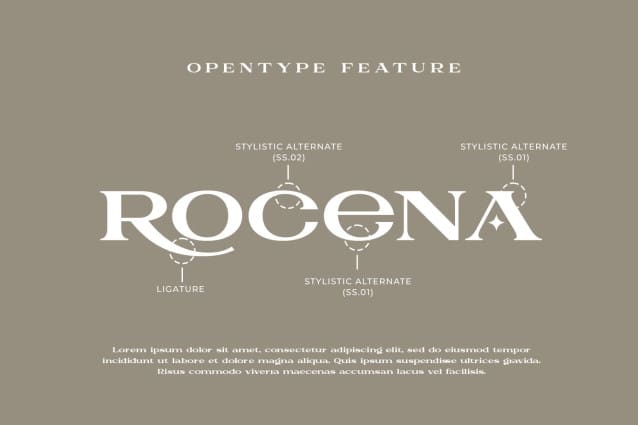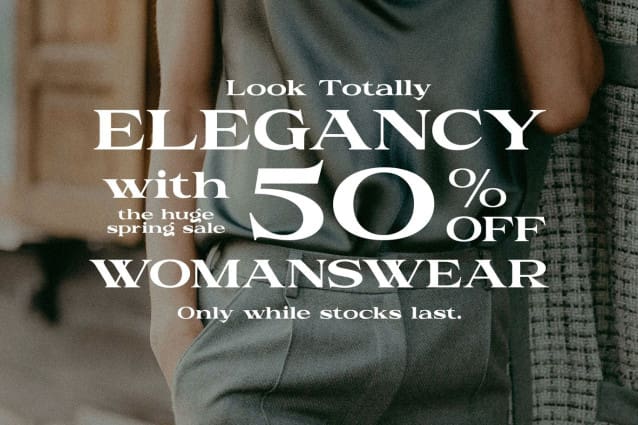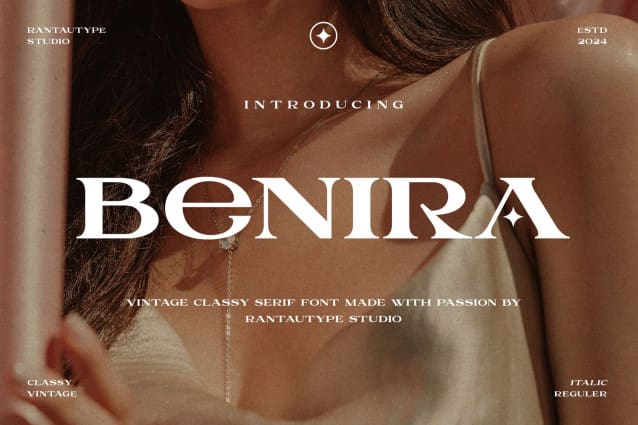
Benira Font
Benira Font is a chic vintage font with a broad aesthetic and sharp essence of elegant fashion. Benira is a perfect choice for any creative, chic and lifestyle design such as logos, advertisements, stationery, branding project, display and magazine, invitation, corporate branding, product design, label, commercial project and many other projects with a elegant touch.